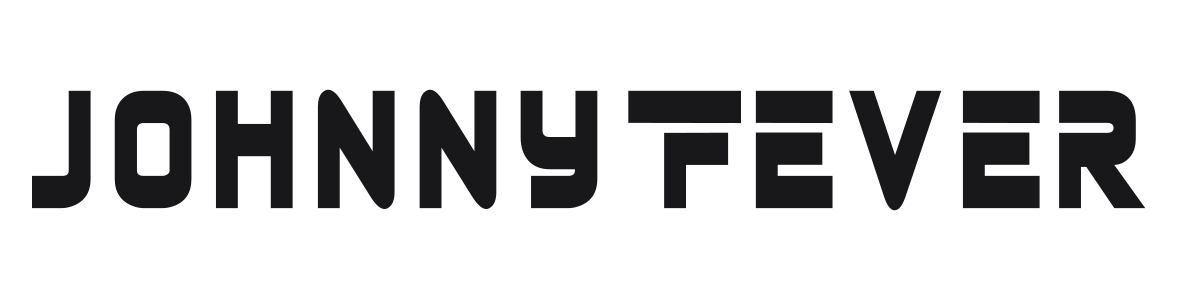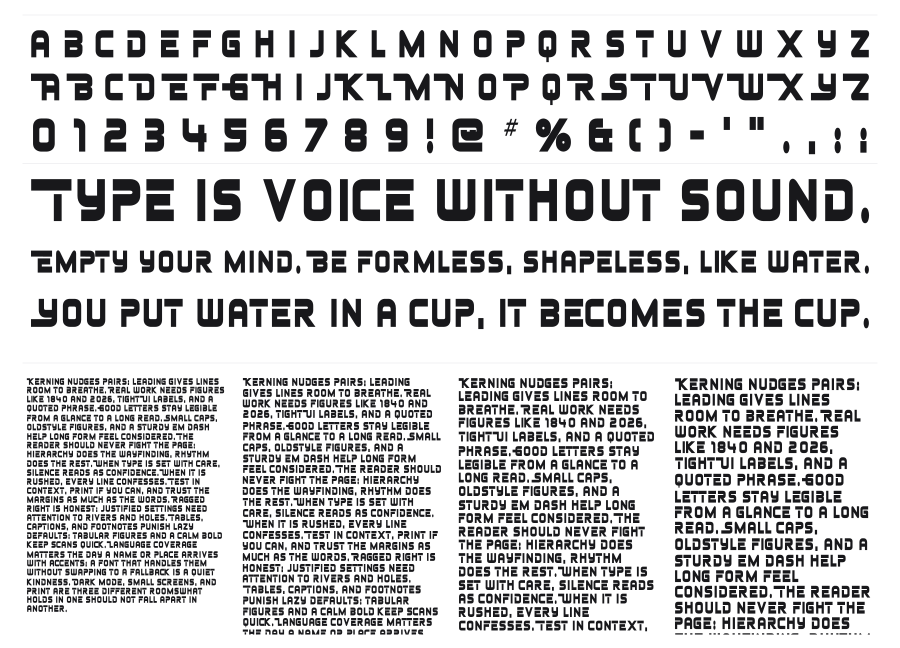
Johnny Fever
Johnny Fever is a heavy, blocky display face from Ray Larabie with squared-off geometric letterforms and a futuristic edge. The uppercase-only design carries serious visual weight, with dense proportions that make it hit hard in headlines, posters, and title screens. Despite the name's '70s TV connotations, this one reads as thoroughly modern and industrial.